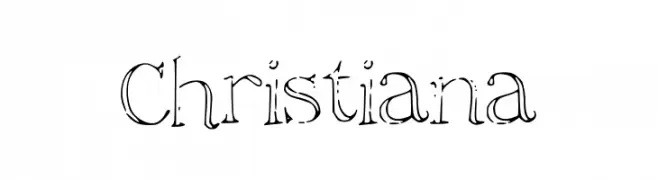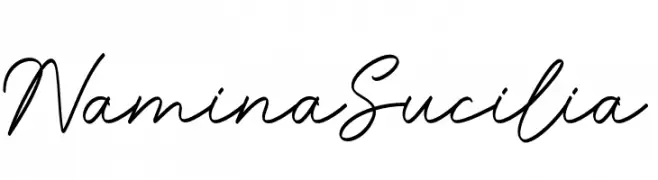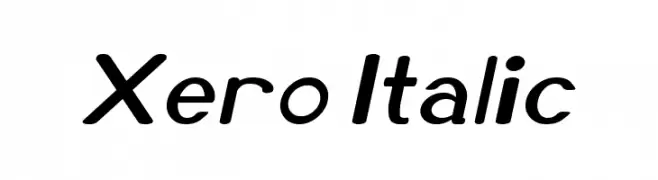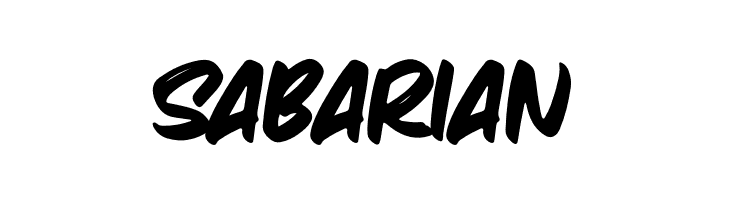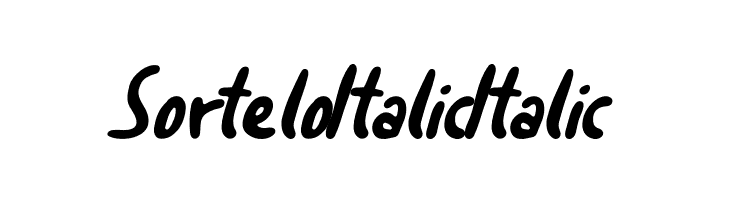
A distressed serif font with a vintage, hand-drawn appearance.
A bold, brushstroke font with a rebellious and chaotic style.
An elegant, flowing script font with a handwritten style.
A graceful, fluid handwritten script with elegant cursive connections.
A bold, rounded, and geometric font with a futuristic style.
A bold, decorative font with a spooky, horror-themed aesthetic.
A sleek, modern italic font with smooth curves and consistent stroke width.
A bold, futuristic font with angular, slanted characters and a geometric design.
A bold, angular font with a geometric and edgy design.
An elegant script font with flowing, cursive lines and intricate details.